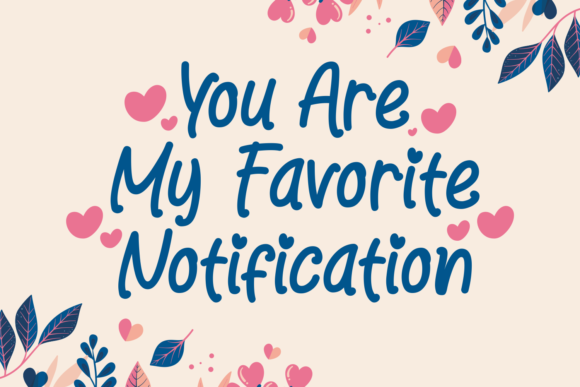
Shelia is a sweet, soft hand-lettered display font. The playful rounded characters make it the perfect font for creating stunning Valentine’s art. Shelia comes packed with heart-themed swashes, that will allow you to add a decorative touch within seconds. Get inspired by its romantic feel and use it to create gorgeous wedding invitations, beautiful stationary art, eye-catching social media posts, and cute greeting cards.